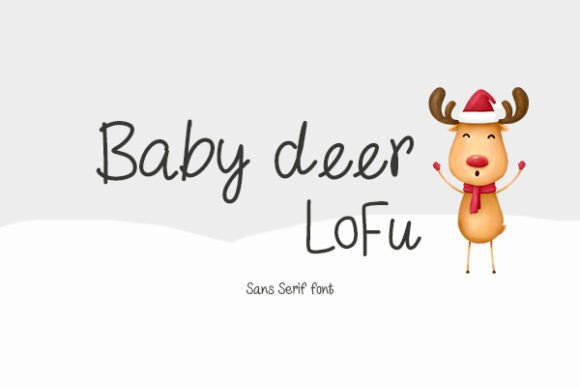
Step into a realm of enchantment with Baby Deer Lofu Font, a script font that exudes charm and playfulness. Inspired by the innocent eyes of a baby deer, this font invites you to infuse your creative projects with a touch of whimsy and warmth.
Crafted by the skilled hand of TanoiCartoonist, Baby Deer Lofu is more than just a font; it's an expression of pure joy and creativity. Each character dances across the page with a casual vibe, reminiscent of a handwritten note from a dear friend. The informal style of this font lends itself beautifully to a myriad of projects, from fun-filled planners to heartfelt wedding invitations.
Imagine the delight of your loved ones as they receive a thank-you card adorned with the charming curves of Baby Deer Lofu. Its delicate strokes add a personal touch, making each card a cherished keepsake. Let your creativity soar as you design eye-catching social media posts that pop with personality. Baby Deer Lofu effortlessly elevates your content, transforming it into a visual feast that captivates your audience.
Unleash your inner artist and create stunning logos that radiate warmth and charm. Baby Deer Lofu is the perfect choice for businesses looking to establish a strong brand identity. Its playful nature invites customers to connect with your brand on a deeper level, fostering a sense of trust and loyalty.
The versatility of Baby Deer Lofu knows no bounds. Whether you're designing posters that demand attention or crafting T-shirts that make a statement, this font delivers impact. Its bold presence ensures that your message is seen and remembered, leaving a lasting impression on all who encounter it.